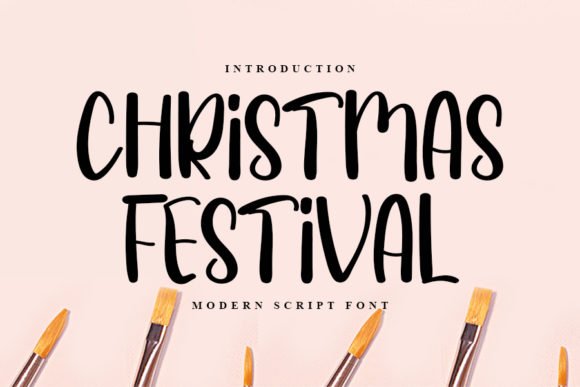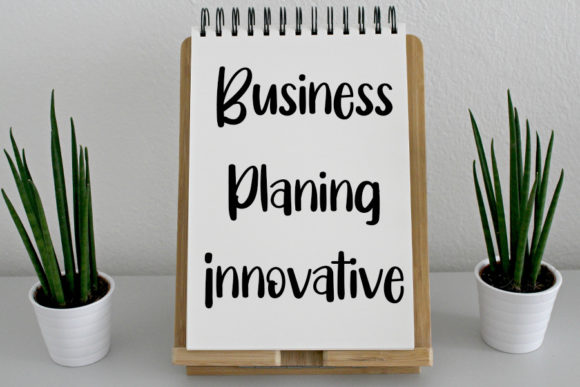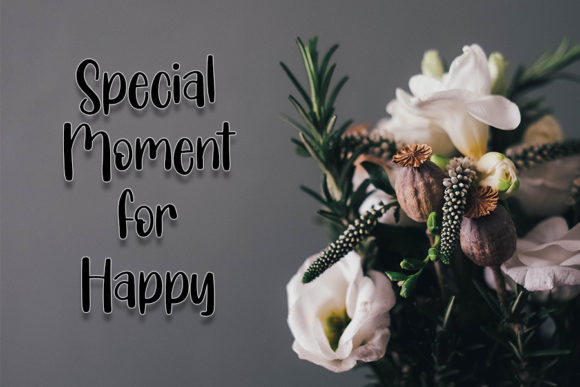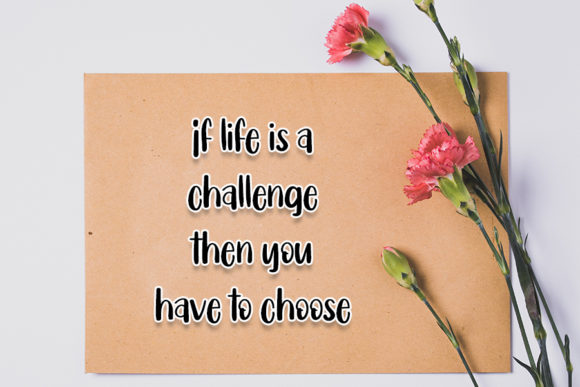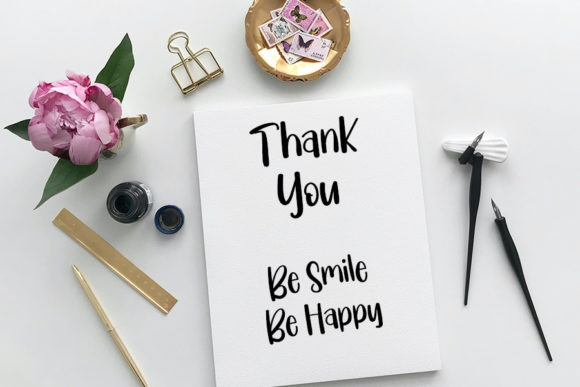
Adding a Touch of Festive Cheer to Your Designs
As you sit down to brainstorm ideas for your holiday project, the excitement builds up. You envision a merry scene, filled with twinkling lights, snowflakes, and the warmth of a crackling fireplace. The atmosphere is merry and bright, and you can’t wait to bring it to life. But, have you ever felt like something’s missing? A touch of personality, perhaps, or a dash of whimsy to set your project apart?
Enter the Christmas Festival Font, a friendly handwritten font designed to add a joyful touch to each of your projects. With its playful, cursive script, this font is the perfect accompaniment to your festive designs. Whether you’re creating holiday cards, gift tags, or social media graphics, the Christmas Festival Font is sure to bring a smile to your audience’s faces. For designers, this font is a valuable asset, offering a unique and eye-catching way to express your creativity and make your projects truly special.
Christmas Festival Font Key Features
- Unique Characteristics: The font features intricate, hand-drawn designs and ornaments, perfect for festive and holiday-themed projects.
Christmas Festival Font Review
I recently had the chance to work with the Christmas Festival Font, and I must say it’s a unique and festive addition to any holiday-themed project. ✨ The font’s playful, handwritten style is perfect for creating a warm and inviting atmosphere, making it ideal for greeting cards, social media posts, or even restaurant signage.
Here are some of the font’s strengths:
- ✨ Versatile: The Christmas Festival Font can be used in a variety of contexts, from casual to formal.
- ✨ Easy to read: The font’s clear, legible design makes it perfect for large-scale applications, such as billboards or posters.
However, I did encounter a few limitations:
Overall, I’m impressed with the Christmas Festival Font’s potential, but I wish it had a bit more flexibility in terms of size and language support. Despite these limitations, I would still recommend this font to anyone looking to add a touch of festive cheer to their holiday projects.
Christmas Festival Font Practical Application Guide
Use the font in combination with festive graphics and colors to create a cohesive and eye-catching design. Experiment with different font sizes and styles to create visual interest. Consider using the font in conjunction with other festive fonts to add depth and variety to your design.
The Christmas Festival font is ideal for various festive designs, including holiday cards, gift tags, and party invitations. It can also be used for general winter-themed designs, such as snowflake decorations and snowman graphics.
Alternative Christmas Fonts for Designers
Great Vibes is a beautiful, handwritten script font that exudes a festive and joyful atmosphere. It’s perfect for creating invitations, social media posts, and other digital content. Great Vibes is more elegant and sophisticated compared to Christmas Festival Font, making it suitable for upscale events or luxury brands.
Carolyna Pro is a modern, elegant script font that’s ideal for creating a sense of sophistication and luxury. It’s perfect for branding, packaging, and advertising materials. Carolyna Pro is more refined and polished compared to Christmas Festival Font, making it suitable for high-end clients or premium products.